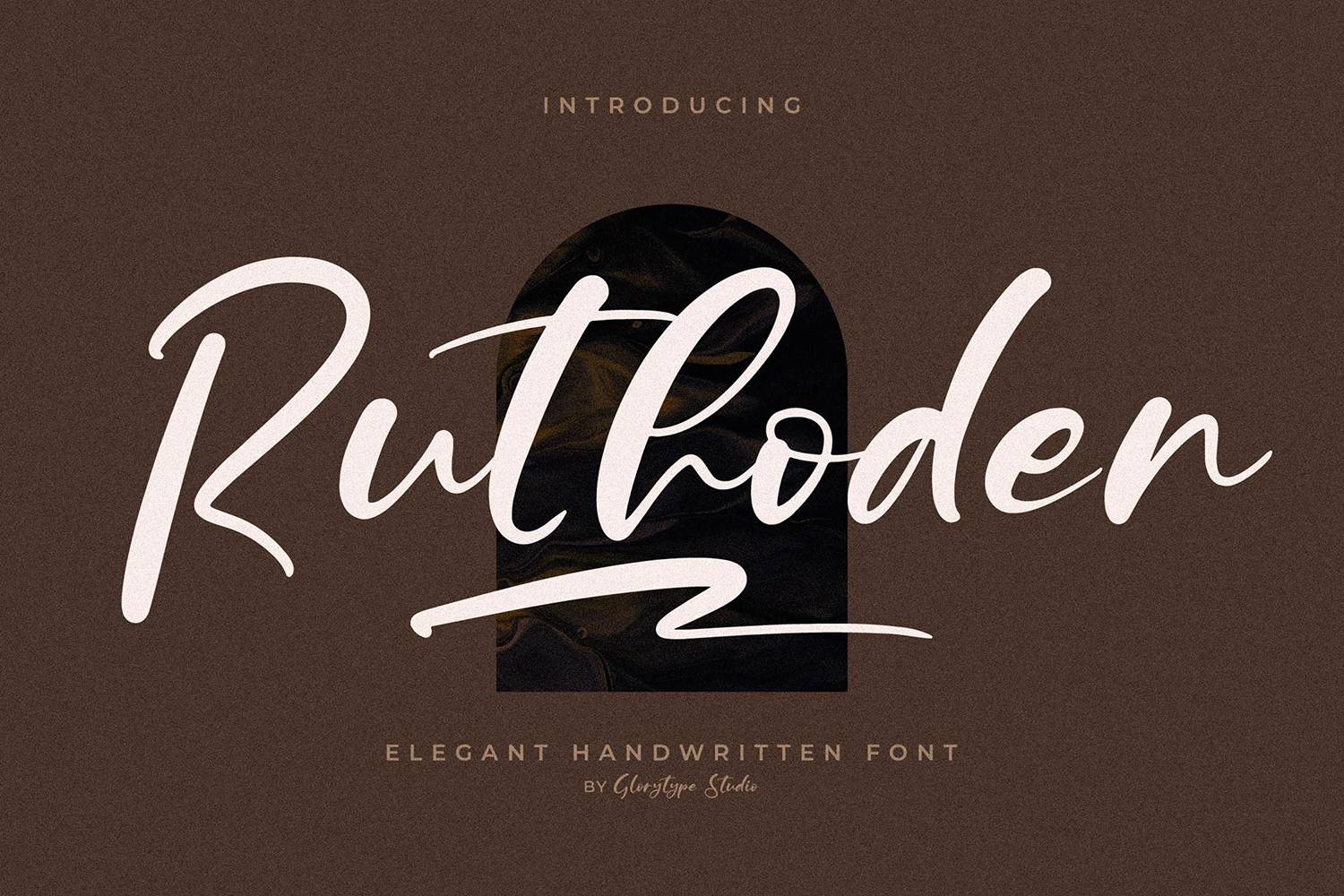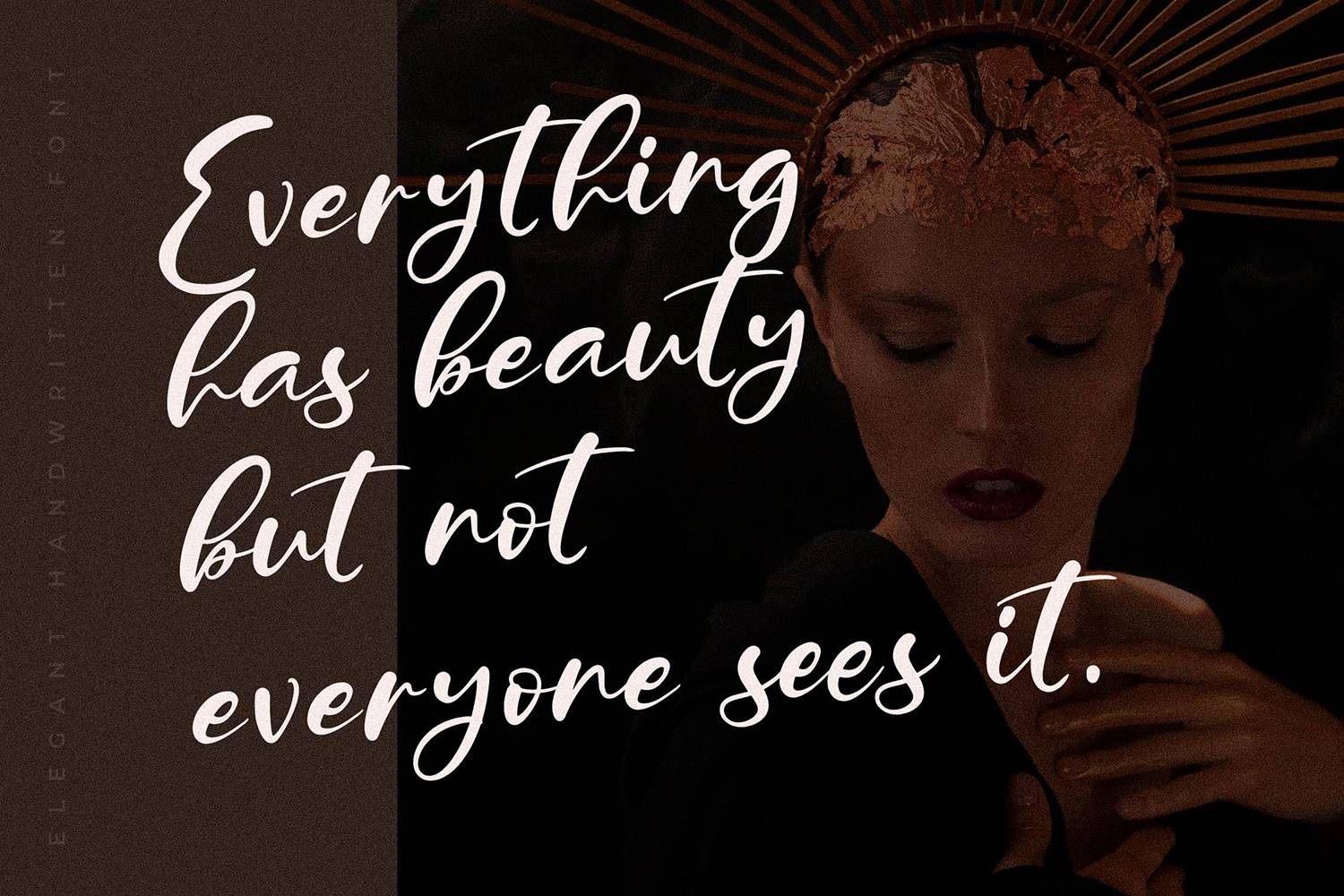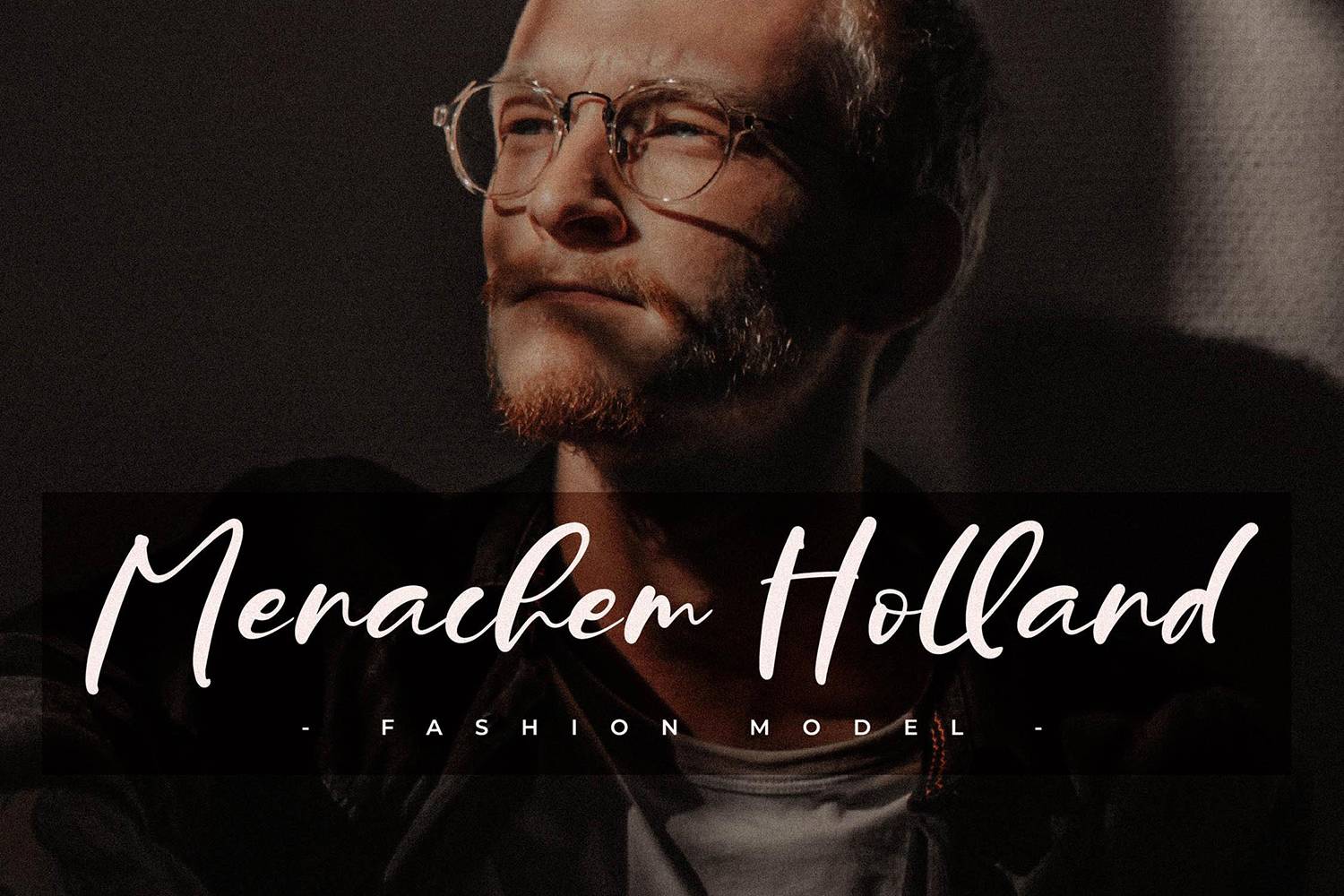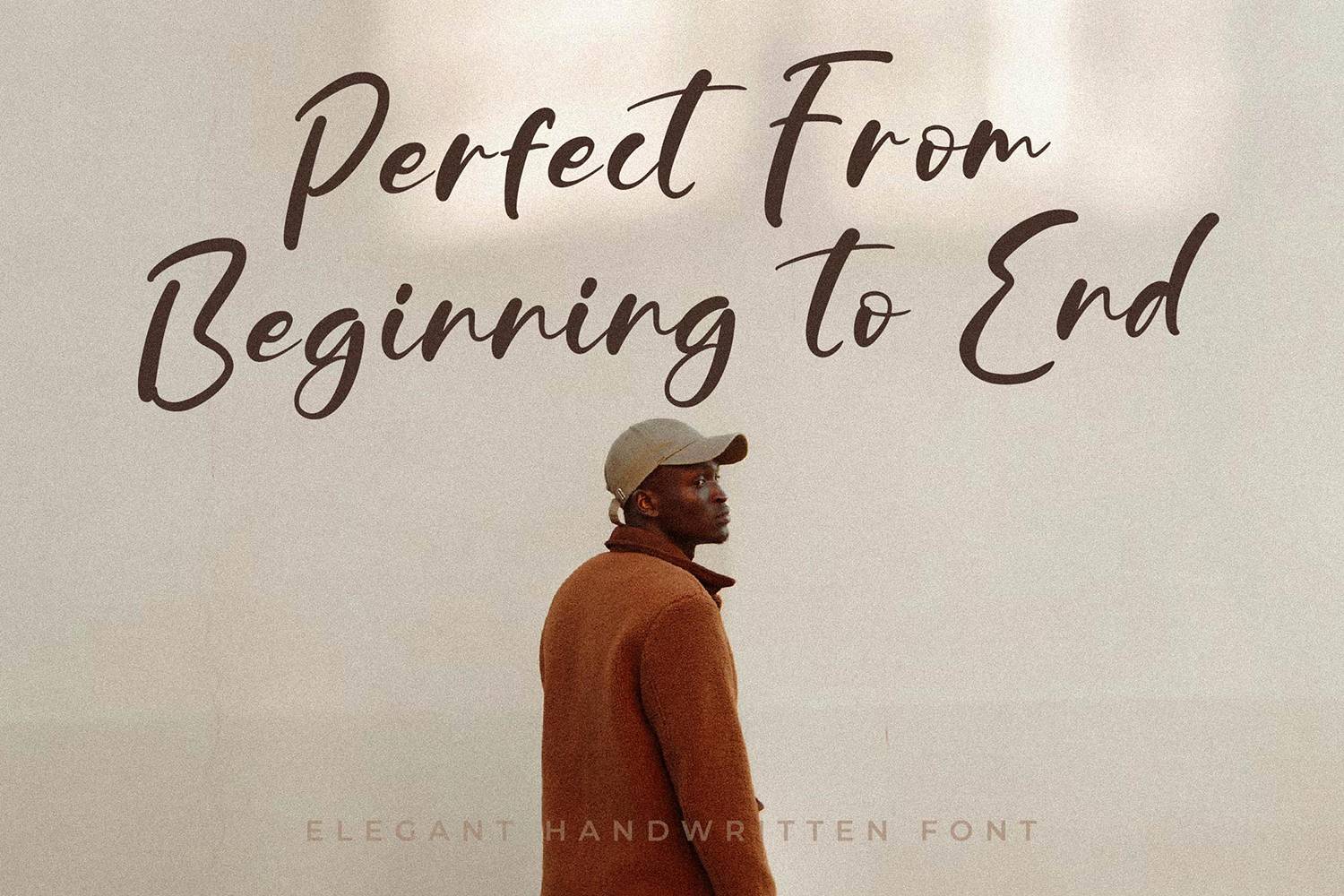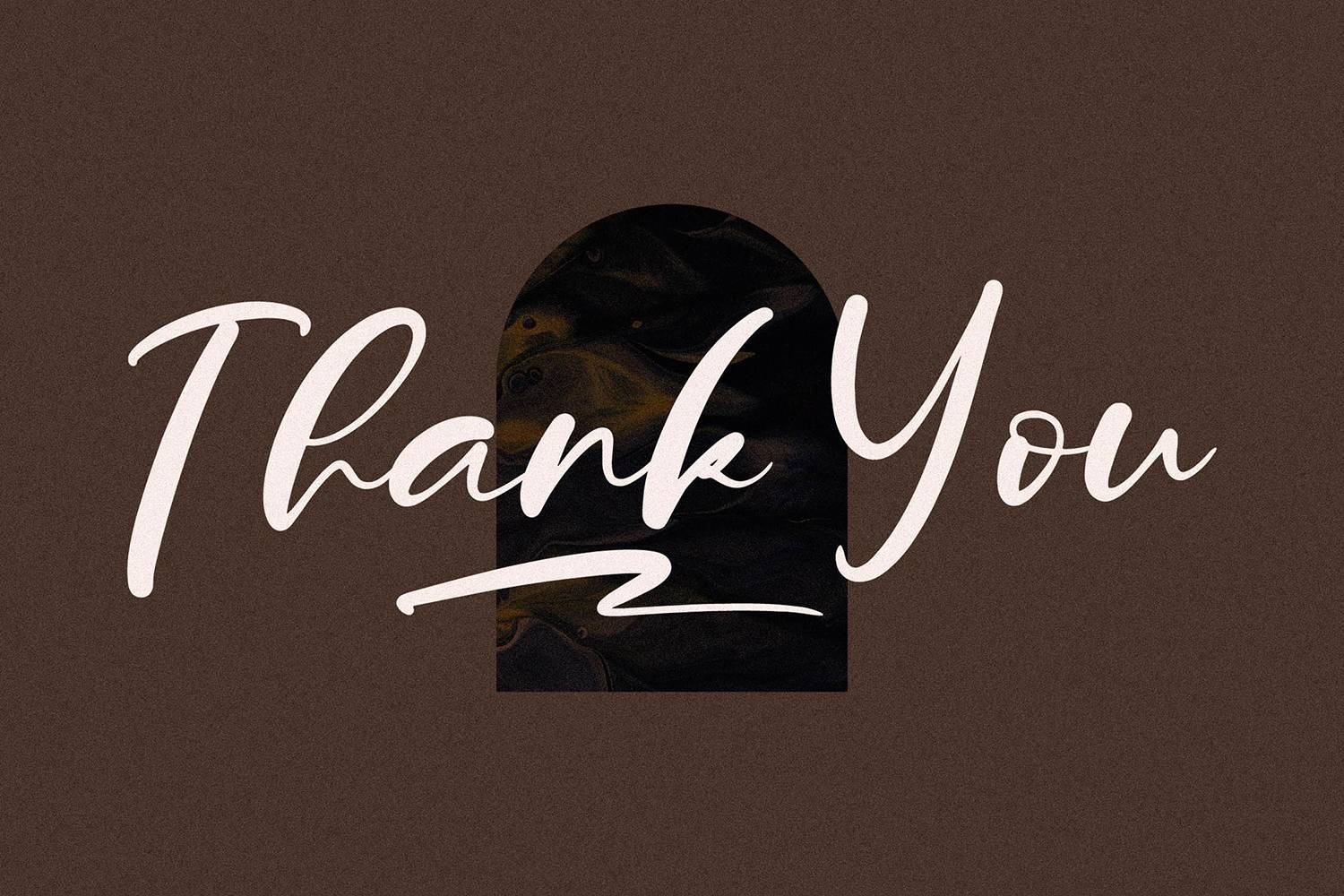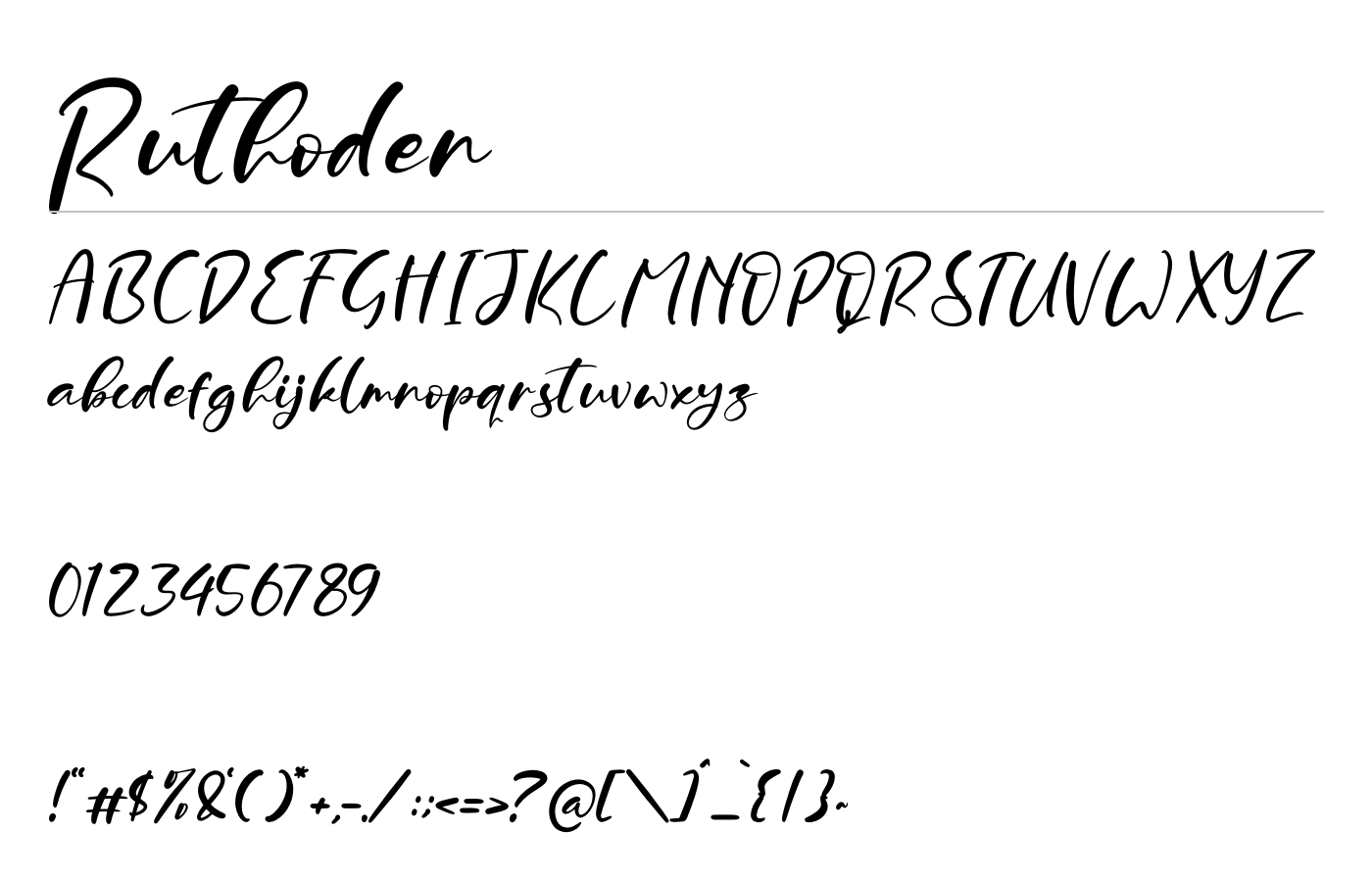
Ruthoden is a stylish script font with a smooth, flowing design that combines elegance with a casual, handwritten feel. Its moderate weight and lively strokes make it perfect for creative projects, branding, and invitations where a personal yet polished look is desired. This font shines in logos, headlines, and packaging, adding a touch of warmth and personality without sacrificing readability.
Ruthoden Font
About Ruthoden Font